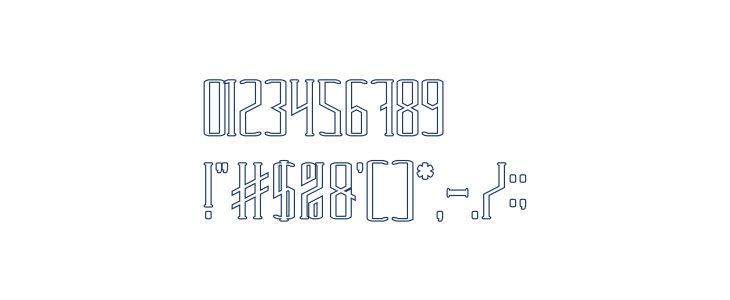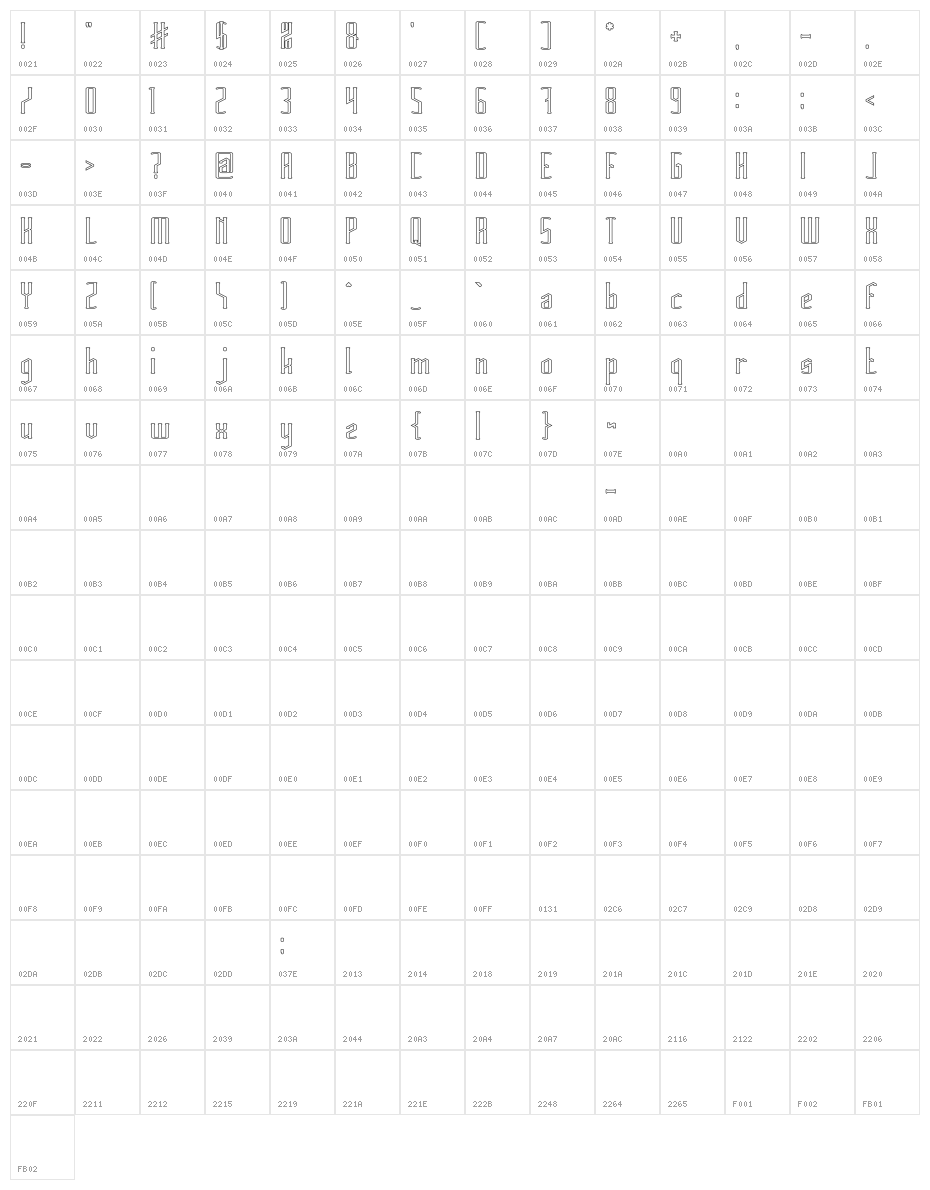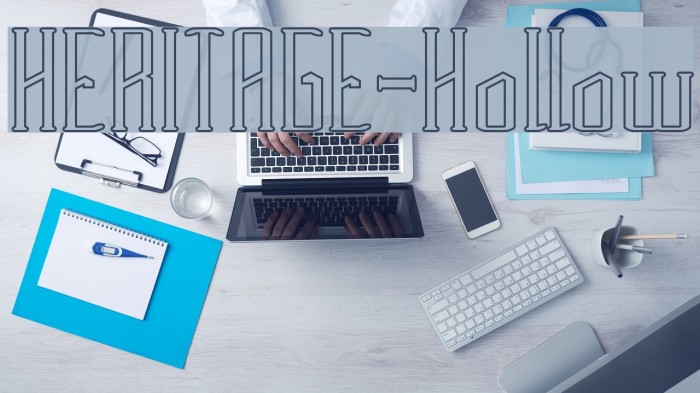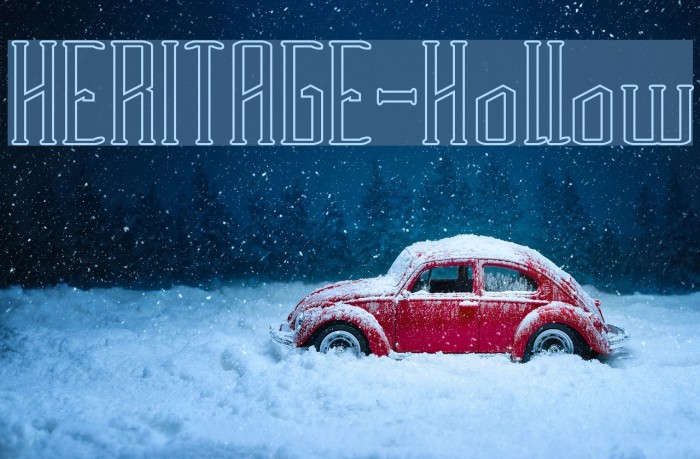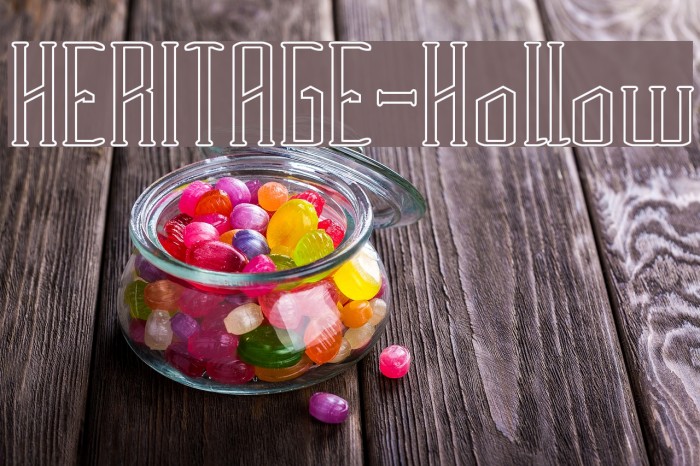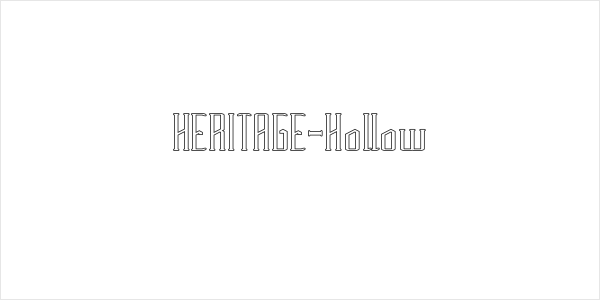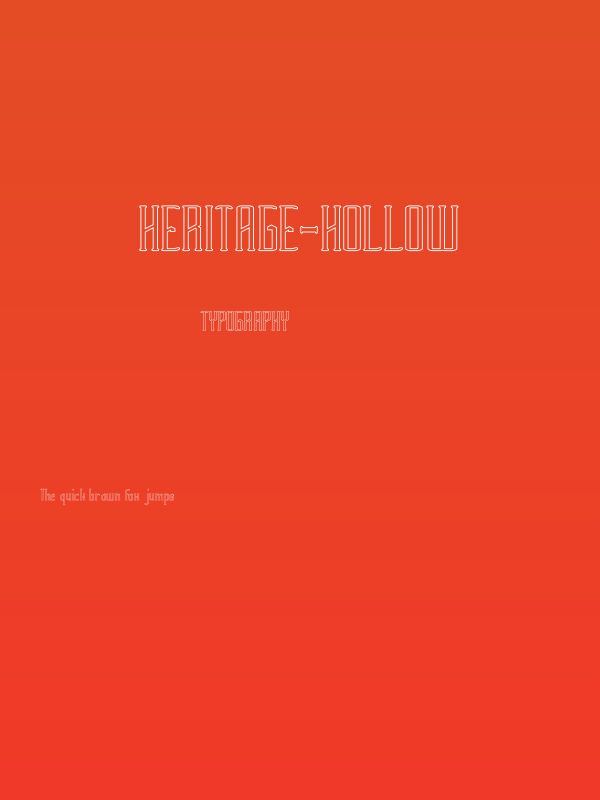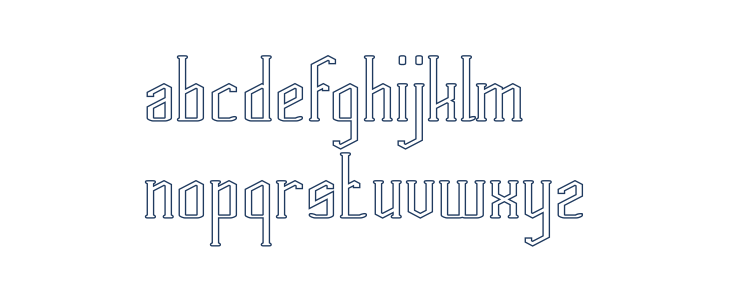
HERITAGE-Hollow Font
HERITAGE-Hollow Description
This font features a unique hollow design with a geometric and structured appearance. The uppercase and lowercase letters maintain a consistent height, giving a uniform look. The characters are outlined, creating a hollow effect that adds a modern and artistic touch. The font's angular lines and sharp edges contribute to its distinct style, making it stand out. The numerals and special characters follow the same hollow and angular design, ensuring consistency across all elements. This font is ideal for projects that require a bold statement with a contemporary twist.
| Proposed Projects | Ideal for branding, posters, headlines, and modern art projects. |